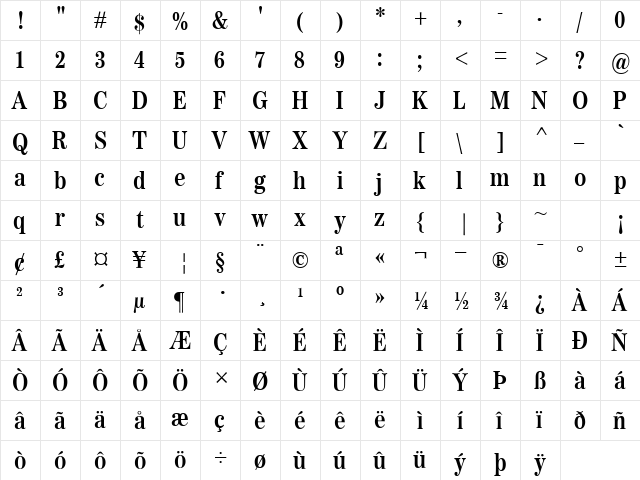
WorldwideHeadline Bold
Design Context for WorldwideHeadline Typeface
WorldwideHeadline is a composed and adaptable typeface that performs quietly and consistently across a wide range of design contexts. The heavy weight commands attention and anchors typographic hierarchies.